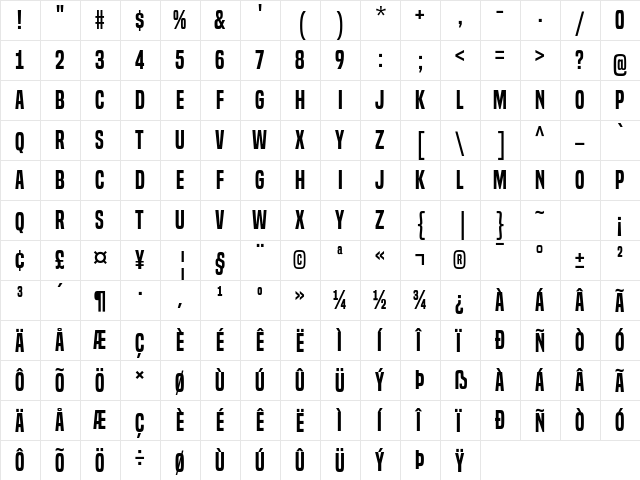
Built Titling SemiBold
Design Context for Built Titling Typeface
Built Titling offers clean, dependable letterforms without strong stylistic allegiance, making it a practical choice for designers who need flexibility. Its bold stroke weight gives it real presence on the page.